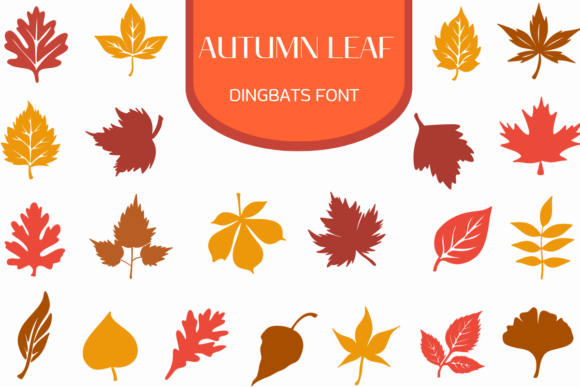
Autumn Leaf Font: Elevate Your Designs with the Beauty of Fall
As the seasons change and autumn arrives, designers and crafters alike seek to infuse their projects with the warmth, nostalgia, and charm of fall. One of the most iconic symbols of autumn is the leaf, with its vibrant colors and varied silhouettes. The Autumn Leaf Dingbats Font is a seasonal decorative font that transforms text into a collection of elegant leaf silhouettes inspired by the beauty of fall. In this article, we’ll explore the features, benefits, and uses of this versatile font.
Key Features of the Autumn Leaf Dingbats Font
- Unique Leaf Illustrations: Each letter, number, and symbol is replaced with a unique leaf illustration, offering a versatile toolkit for designers.
- Crispy Vector-Based Shapes: The font features crisp vector-based shapes that maintain high-quality detail at any size, making it perfect for both small-scale crafts and large-format print projects.
- Variety of Leaf Types: The set includes a wide variety of leaves, ranging from maple, oak, birch, elm, chestnut, ginkgo, sycamore, and beech, to more stylized botanical designs.
Leaf Types Included in the Autumn Leaf Dingbats Font
The Autumn Leaf Dingbats Font includes a diverse range of leaf types, each with its own unique characteristics. Some of the leaf types included are:
- Maple Leaves: Iconic, multi-pointed shapes symbolizing autumn beauty.
- Oak Leaves: Deeply lobed forms representing strength and tradition.
- Birch Leaves: Slender and serrated, capturing delicate seasonal detail.
- Elm Leaves: Oval with fine serrations, versatile for decorative layouts.
- Chestnut Leaves: Palmate with five to seven lobes, bold and distinctive.
- Ginkgo Leaves: Fan-shaped, symbolic of endurance and history.
- Sycamore Leaves: Broad with bold veining, perfect for standout designs.
- Beech Leaves: Simple and elegant, adding balance to compositions.
- Poplar and Aspen Leaves: Heart-shaped with smooth outlines, soft and playful.
- Stylized Artistic Variations: Creative interpretations for visual variety.
Ideal Uses for the Autumn Leaf Dingbats Font
The Autumn Leaf Dingbats Font is a versatile design tool that can be used in a variety of projects, including:
- Greeting Cards: Create beautiful, seasonal greeting cards for friends and family.
- Seasonal Posters: Design eye-catching posters for autumn-themed events or promotions.
- Packaging: Add a touch of autumn charm to product packaging.
- Social Media Graphics: Create engaging social media graphics that capture the spirit of fall.
- Invitations: Design elegant invitations for autumn-themed parties or events.
- Scrapbooking: Add a personal touch to scrapbook pages with the Autumn Leaf Dingbats Font.
- DIY Projects: Use the font to create custom decorations, gift tags, or other DIY projects.
Design Tips for Using the Autumn Leaf Dingbats Font
To get the most out of the Autumn Leaf Dingbats Font, consider the following design tips:
- Mix and Match Leaf Silhouettes: Combine different leaf silhouettes to create unique and interesting compositions.
- Experiment with Colors: Try out different color schemes to capture the vibrant hues of autumn.
- Use as a Pattern: Use the leaf silhouettes to create detailed patterns and borders.
- Combine with Other Fonts: Pair the Autumn Leaf Dingbats Font with other fonts to create visually appealing text combinations.
Benefits of Using the Autumn Leaf Dingbats Font
The Autumn Leaf Dingbats Font offers several benefits for designers and crafters, including:
- Time-Saving: The font saves time and effort by providing pre-designed leaf silhouettes.
- Versatility: The font can be used in a variety of projects, from small-scale crafts to large-format print projects.
- High-Quality Design: The font features high-quality, vector-based shapes that maintain their detail at any size.
- Easy to Use: The font is compatible with popular design platforms, making it easy to use for designers of all levels.
The Autumn Leaf Dingbats Font is a beautiful and versatile design tool that captures the essence of autumn. With its unique leaf illustrations, crispy vector-based shapes, and compatibility with popular design platforms, this font is perfect for designers and crafters looking to add a touch of autumn charm to their projects. Whether you’re creating greeting cards, seasonal posters, or DIY decorations, the Autumn Leaf Dingbats Font is sure to inspire your creativity and elevate your designs.